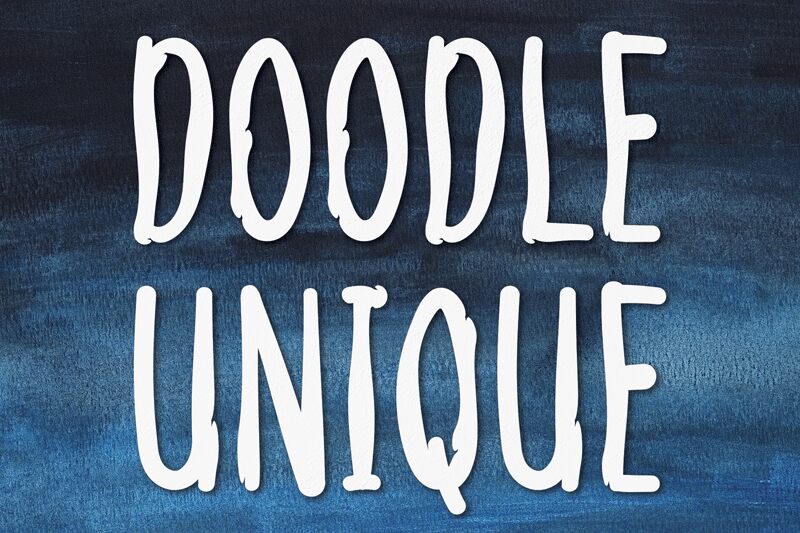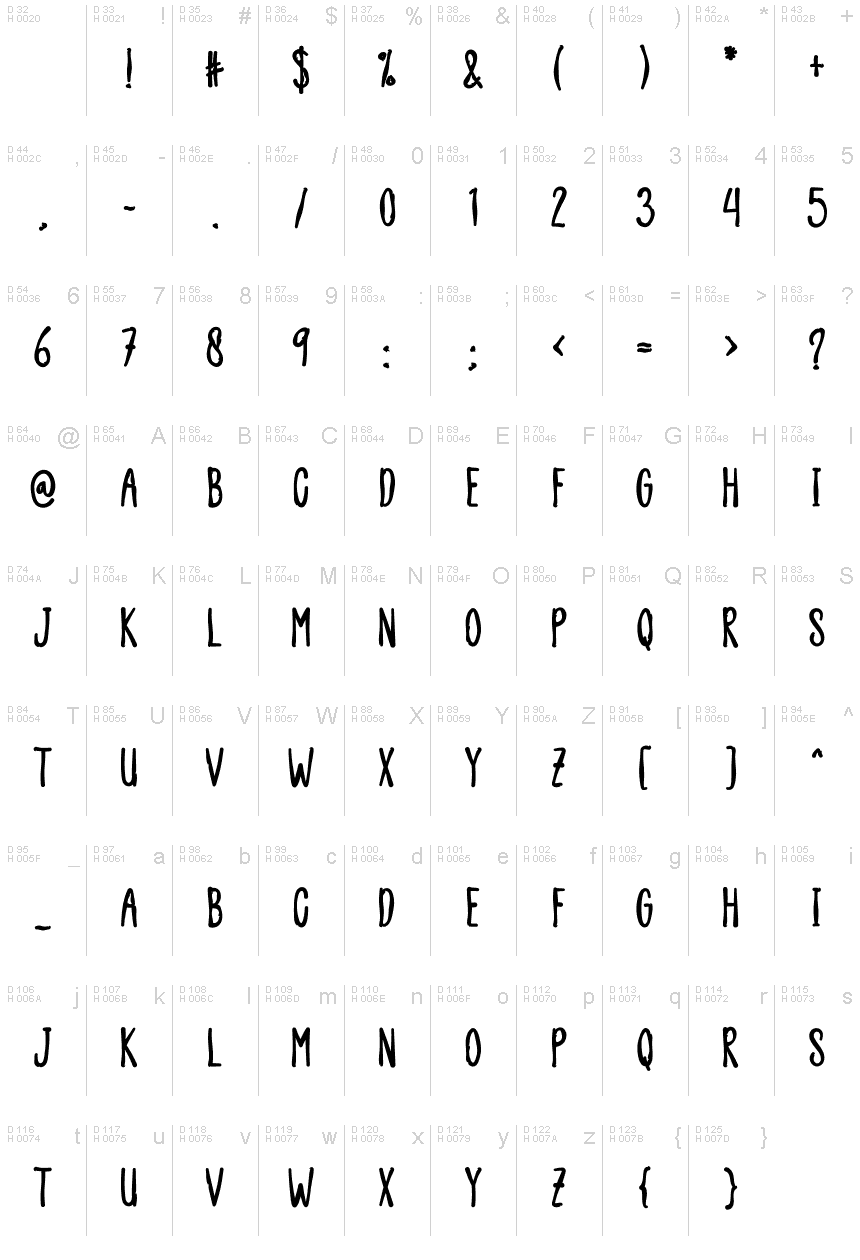
DOODLE UNIQUE
the latest style letters are perfect for wall displays, wedding invitations, social media post logos,
advertisements, product packaging, product designs, labels, photography, watermarks, invitations, stationery,
and any project that requires taste handwriting.